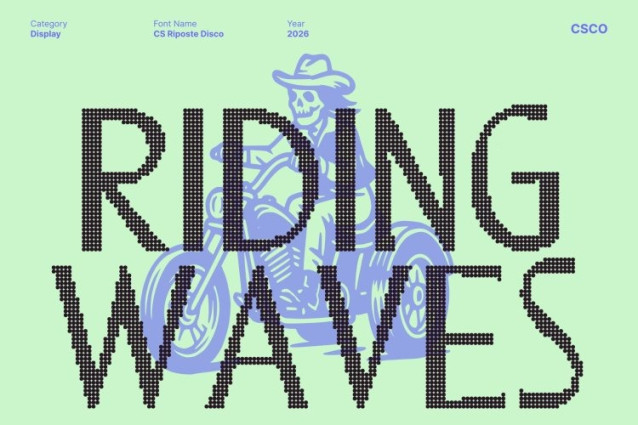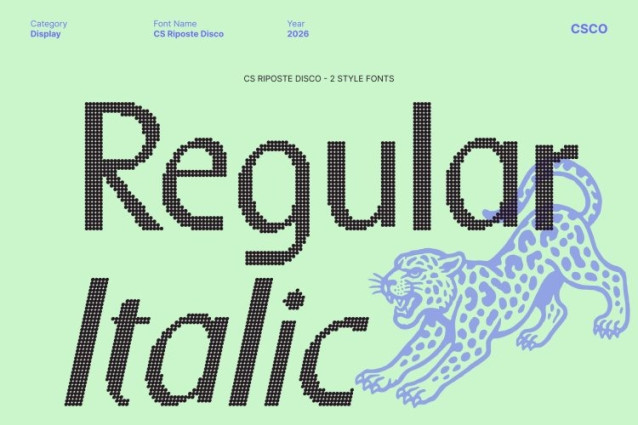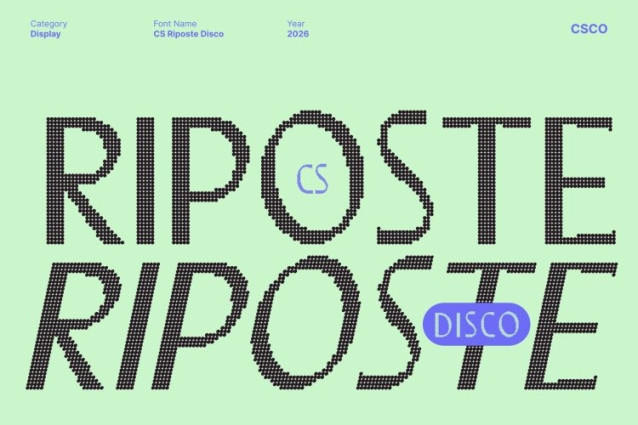
CS Riposte Disco Font This is a sleek, modern sans serif font that merges professional clarity with the vibrant energy of disco-inspired design. Its well-balanced letterforms and refined proportions ensure readability and elegance, while subtle rhythmic curves and playful angles give it a lively, confident presence perfect for designs that need style, movement, and impact.
Clean Letterforms with Energetic Rhythm
Built on simplicity and precision, this font features smooth lines, consistent stroke weight, and carefully considered spacing. The subtle disco-inspired dynamics add motion and visual pulse, creating text that feels fresh, modern, and alive ideal for layouts that need both sophistication and a touch of playful flair.
Professional Flexibility with Expressive Edge
Balancing professionalism with creativity, this font communicates credibility while carrying a relaxed, contemporary personality. Its clean, structured forms adapt effortlessly to both corporate and creative contexts, while the energetic touches make it perfect for branding, editorial projects, and lifestyle visuals.
Perfect for Branding, Editorials, and Nightlife-Inspired Projects
This font shines in modern branding, magazine layouts, event posters, digital campaigns, and promotional materials. Its stylish sans serif design brings clarity, sophistication, and a hint of nightlife rhythm to any application turning clean typography into a statement of confident, contemporary style.